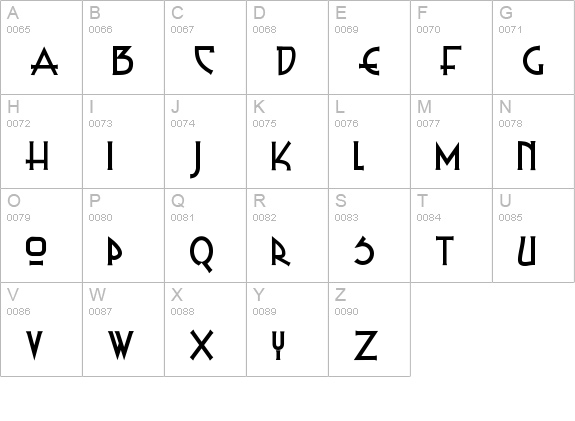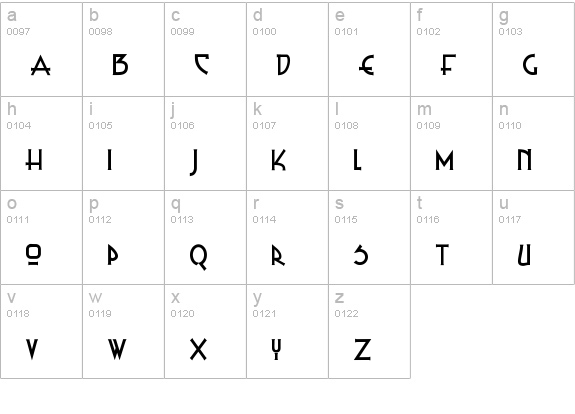
Russel Write TT Font Details
Russel Write TT font is a stylish and modern typeface that exudes elegance and sophistication. Its unique design features clean lines and a contemporary aesthetic, making it perfect for a wide range of design projects. Whether you are creating branding materials, invitations, or website content, Russel Write TT font will add a touch of class to your work. What sets Russel Write TT font apart is not only its sleek appearance but also the fact that it is available for free. Yes, you read that right - this high-quality font can be downloaded at no cost from FontsMarket.com. So, if you're looking to elevate your designs without breaking the bank, Russel Write TT font is the perfect choice. Download it today and watch your projects come to life with this stunning typeface.